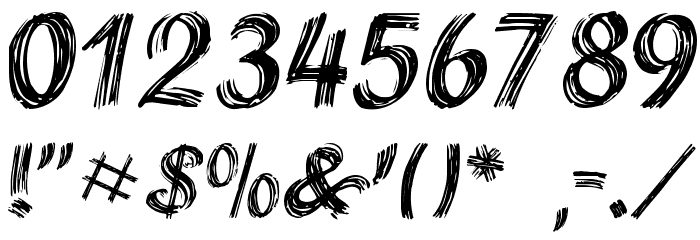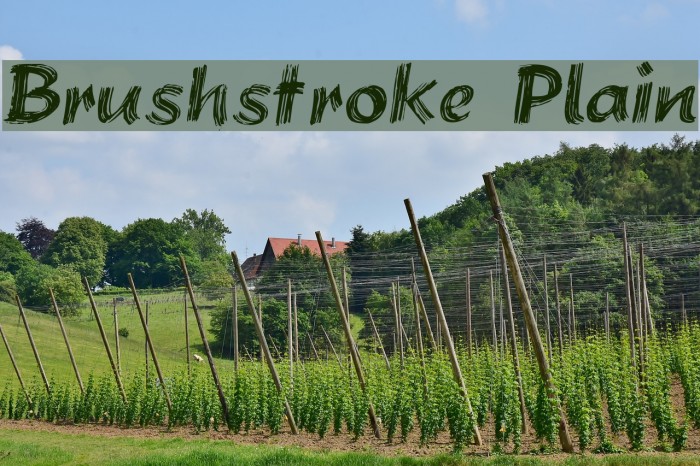
Brushstroke Plain Font
This font exudes a dynamic and artistic flair, reminiscent of bold brushstrokes painted with expressive energy. Each character is crafted with a textured appearance, giving the impression of hand-painted strokes. The uppercase and lowercase letters maintain a consistent style, with varying thickness that adds a sense of movement and vitality. Numbers and special characters follow the same artistic theme, ensuring a cohesive look across all text elements. The font's unique style makes it stand out, ideal for projects that require a touch of creativity and individuality.
A dynamic, brushstroke-style font with an artistic and textured appearance.
- Font: Brushstroke Plain
- Proposed Projects: Ideal for art-related projects, creative branding, posters, and any design needing an expressive touch.
- Overall Style: Artistic, Expressive
- Use Case: Logos, Posters, Headlines